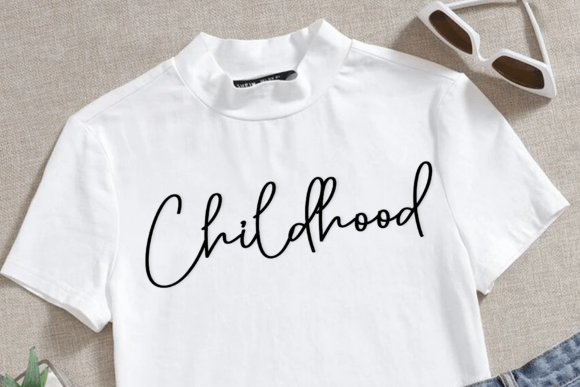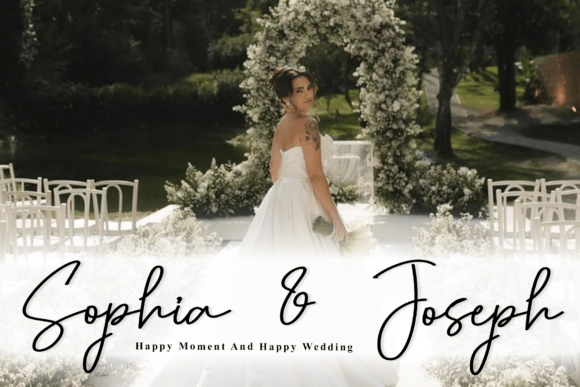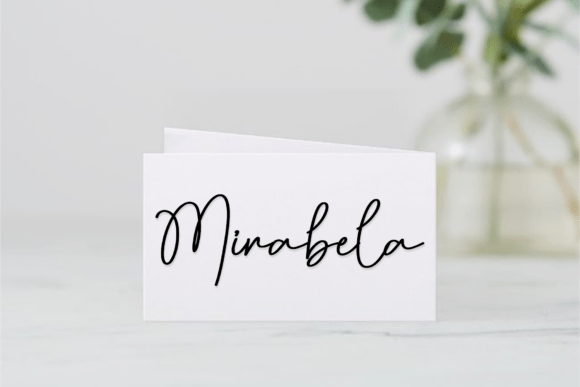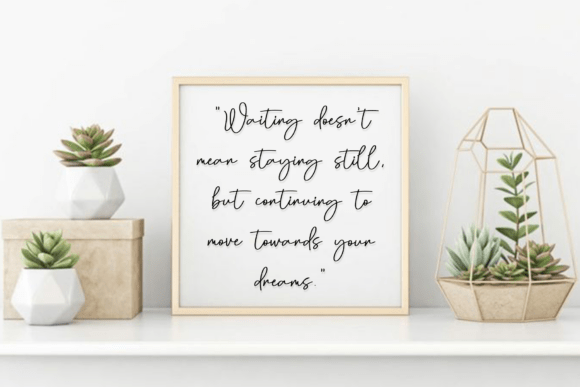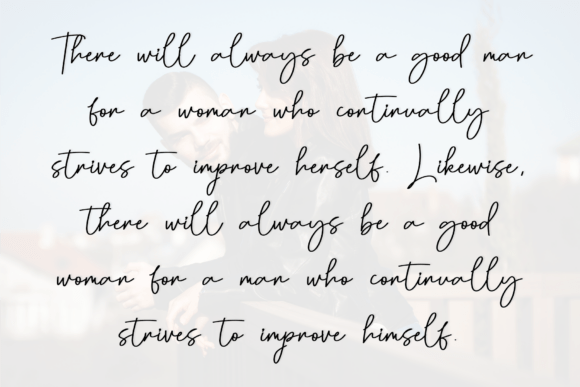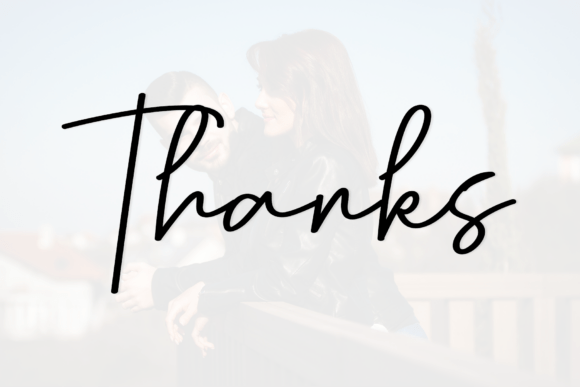
The Perfect Pen Pal: Unlocking the Charm of the Dating Font
Who hasn’t scribbled down their thoughts, feelings, and deepest secrets in a personal journal or a heartfelt letter to a loved one? It’s those intimate, handwritten moments that bring us closest to ourselves and others. Now, designers have the chance to capture that essence in a typeface that’s as relatable as it is beautiful – the Dating Font.
This charming typeface embodies a relaxed, casual vibe that feels refreshingly authentic in a world of over-designed scripts. Its lean, expressive lines and horizontal flow make it a perfect antidote to rigid, pretentious fonts. For lifestyle influencers, social media managers, and boutique owners, the Dating Font is a valuable tool for digital storytelling, pairing wonderfully with bold fonts to create a sophisticated hierarchy.
Dating Font Key Features
- Unique Character Set: Dating Font features a unique set of characters, including special symbols and icons, making it ideal for use in dating and relationship-themed designs.
Dating Font Review
I recently had the chance to review Dating Font, a font designed specifically for use in dating profiles and online dating platforms. Overall, I was impressed with the results, and here’s why:
- ✨ The font is modern and sleek, perfect for catching the eye of potential matches.
- ✨ The font is highly legible, even at smaller sizes, which is a must for online profiles where space is limited.
- ✨ The font comes in a variety of weights and styles, allowing users to customize their profile to suit their personal taste.
- ⚠️ The font may not be suitable for use in longer blocks of text, such as in profiles with lengthy descriptions.
- ⚠️ The font may not be as effective in darker backgrounds, where the text may become difficult to read.
Overall, I think Dating Font is a solid choice for anyone looking to spice up their online dating profile. While it may have some limitations, its modern design and high legibility make it a great option for catching the eye of potential matches.
Tips for Getting the Most Out of Dating Font
Here are some tips for getting the most out of Dating Font:
- Use it in conjunction with other design elements, such as images and graphics, to create a cohesive look.
- Use the font to create a consistent brand identity across all your designs.
Dating Font is commonly used in:
- Dating website and app designs
- Relationship-themed marketing materials
- Valentine’s Day and other
Alternatives to Dating Font for Designers
Playfair Display is a luxurious, high-end font that can add sophistication and elegance to your designs. It’s ideal for use in branding, advertising, and luxury packaging. When to use: formal invitations, high-end product labels, and premium website headers.
Comparison to Dating Font: Playfair Display has a more refined and classic feel compared to Dating Font’s distressed, vintage aesthetic. Playfair Display is better suited for formal and high-end applications, while Dating Font is more suitable for casual, creative projects.
Great Vibes is a beautiful, elegant script font that can add a touch of sophistication and whimsy to your designs. It’s ideal for use in branding, advertising, and editorial content. When to use: wedding invitations, luxury product packaging, and high-end website headers.